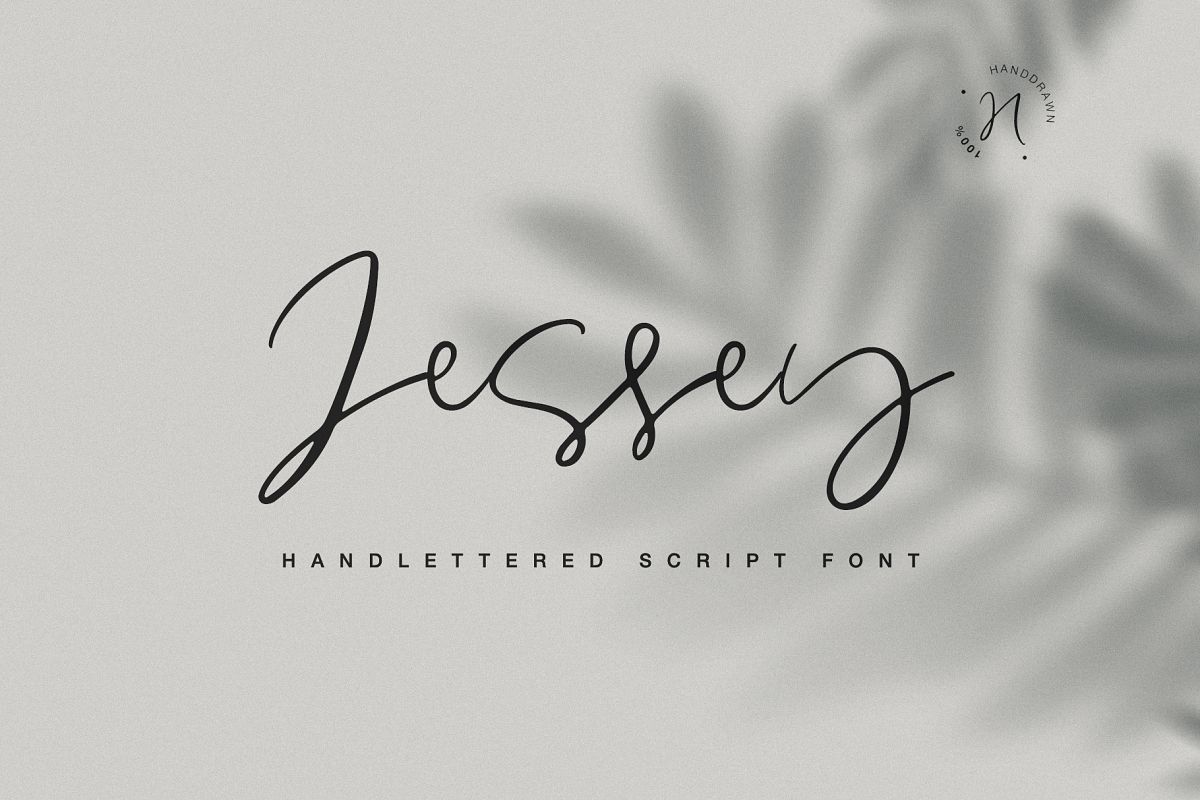
JESSEY handwritten font
This font is a new Calligraphic Script. Here is that: floating baseline, ligatures and multilingual support :)
Jessey Script will look beautiful on holiday invitations, wedding invites and stationery, logos, and more.
• Support ALL European Languages